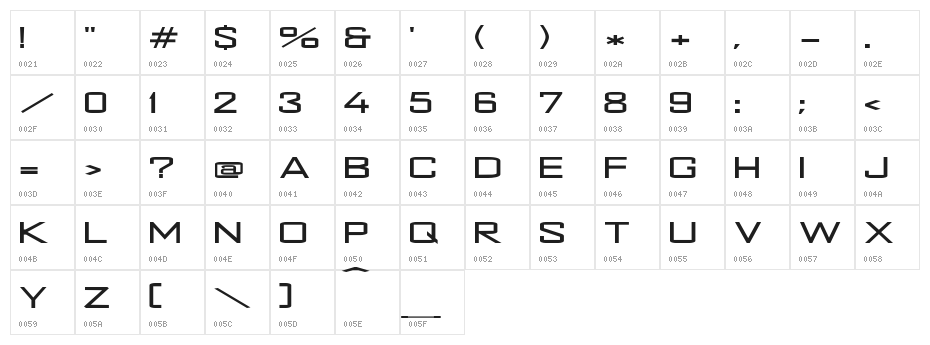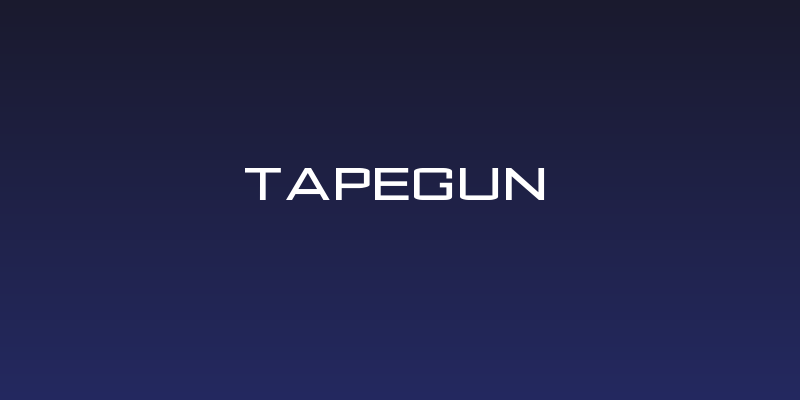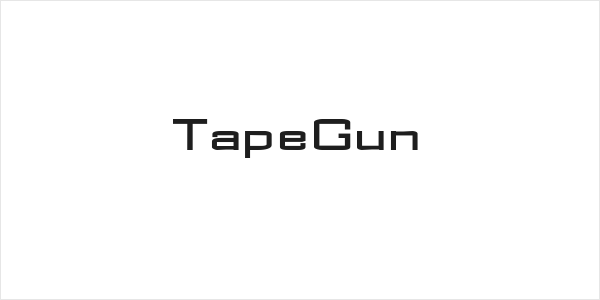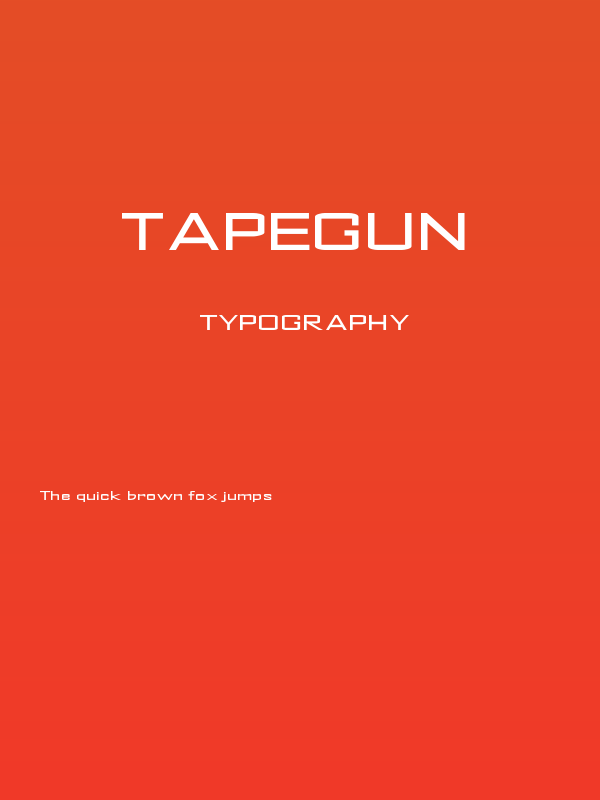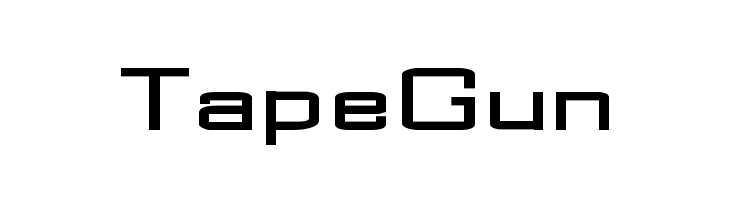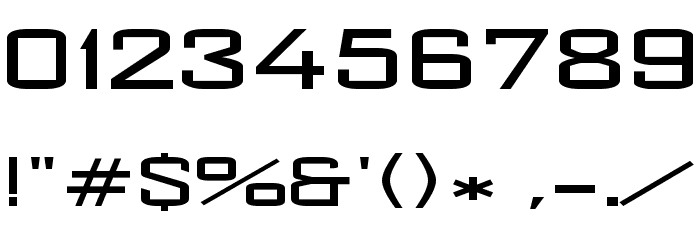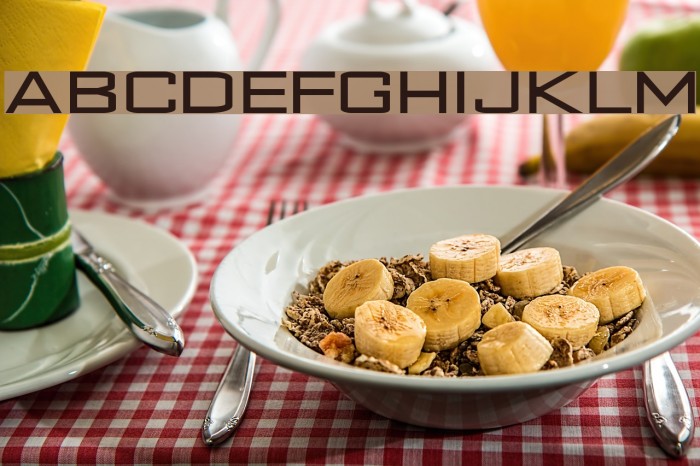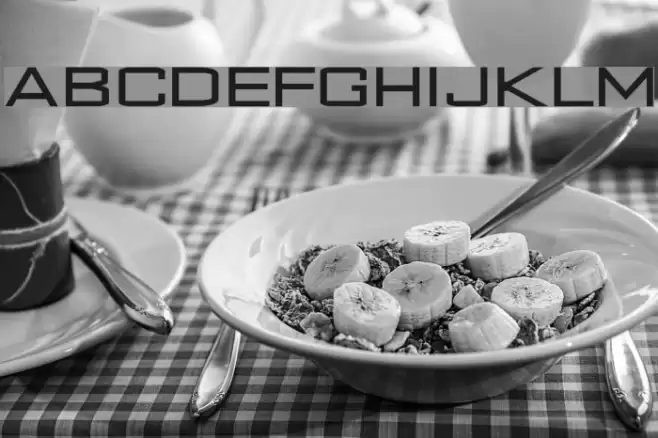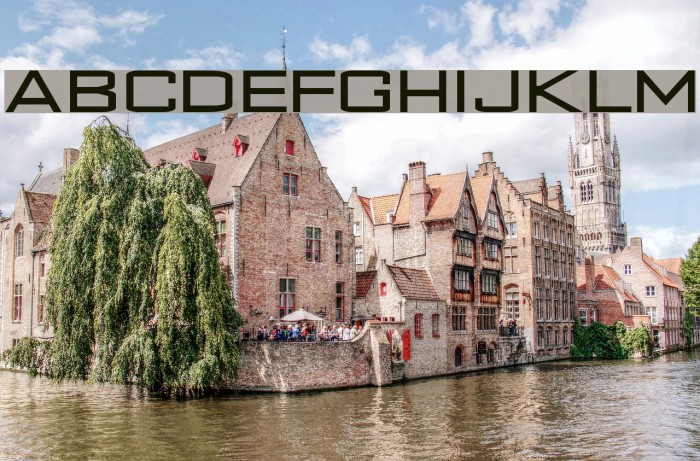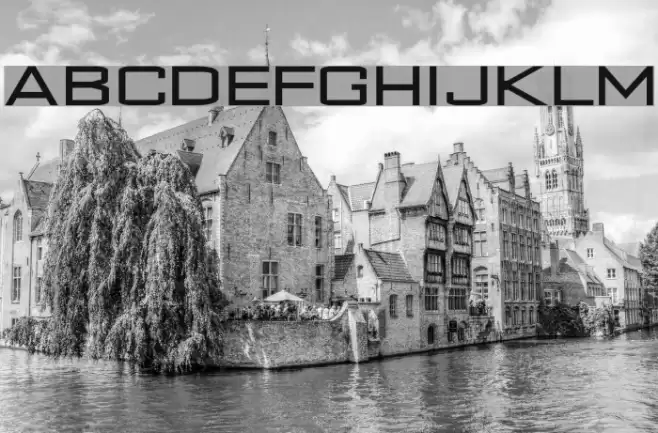
TapeGun Font
TapeGun Description
This font features a modern, geometric design with clean, sharp edges and a futuristic feel. The characters are structured with a uniform thickness, giving it a sleek and cohesive appearance. Uppercase and lowercase letters maintain a consistent style, with angular cuts and straight lines that enhance its contemporary look. The numerals and special characters follow the same design principles, ensuring a harmonious overall aesthetic. Its distinct style makes it suitable for projects that require a bold, modern statement.
| Use Case | Headlines, Logos, Digital Interfaces |
| Proposed Projects | Ideal for technology branding, sci-fi themed projects, modern logos, and digital interfaces. |